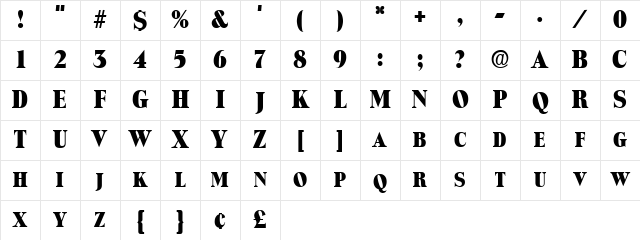
RevivalCaps Normal
Design Context for RevivalCaps
RevivalCaps is a composed and adaptable typeface that performs quietly and consistently across a wide range of design contexts.